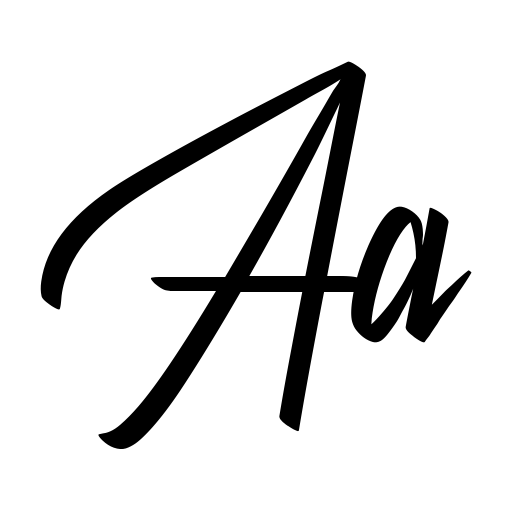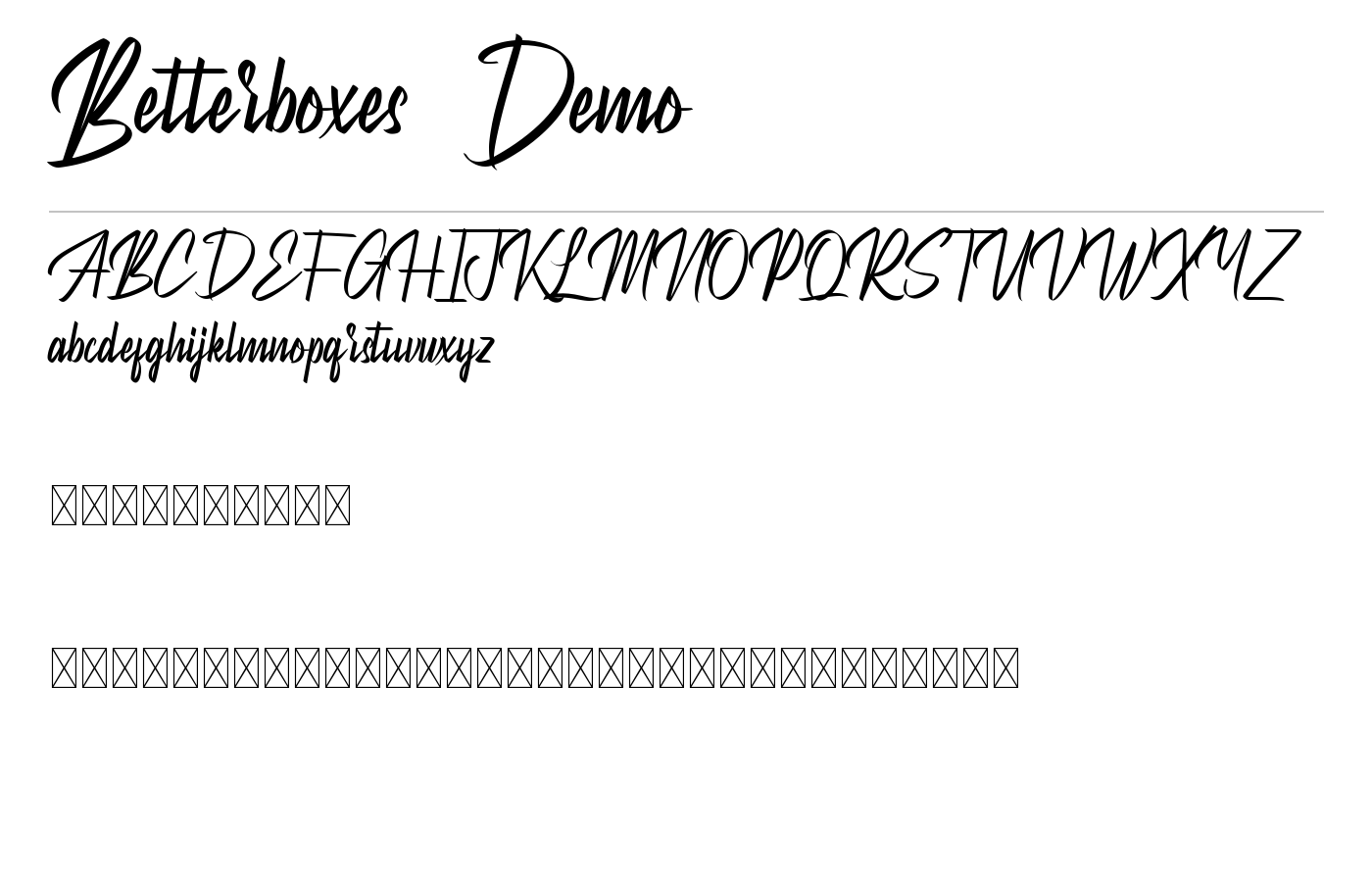
Betterboxes Demo Font is a lively and stylish script font with a handwritten feel, characterized by its slender, fluid strokes and slightly angled letterforms. It offers a playful yet elegant personality, making it ideal for creative branding, invitations, and dynamic headlines where a personal, artistic touch is desired. This font excels in projects that benefit from a distinctive, handcrafted look that stands out with charm and sophistication.
Betterboxes Demo Font
About Betterboxes Demo Font